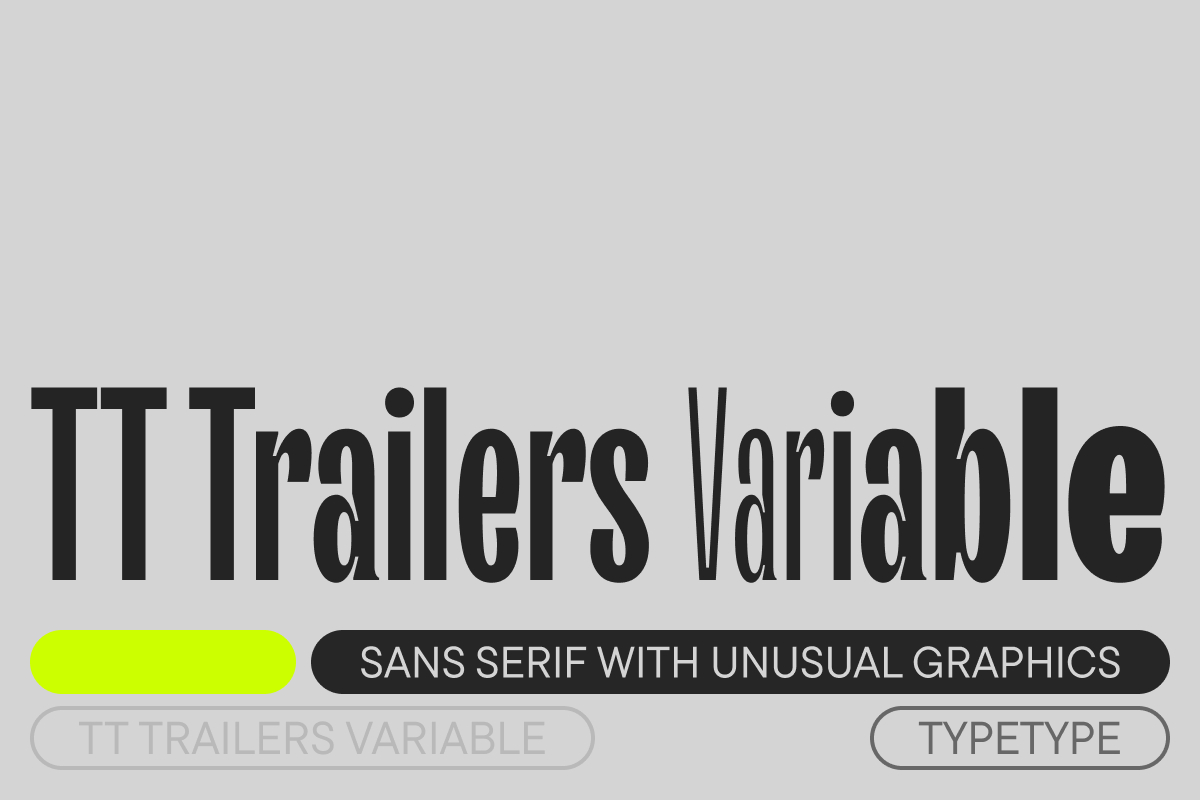
TT Trailers Variable
TT Trailers is a stylish and expressive display sans serif. This font is easily recognizable by its unusual graphics: the design of each glyph in the font is original and custom-made, and the forms are experimental. TT Trailers was initially designed to be an ideal match for the film industry. It integrates seamlessly into poster designs and works amazingly well in credits. Yet, in practice, the application scope of the typeface extends far beyond that.